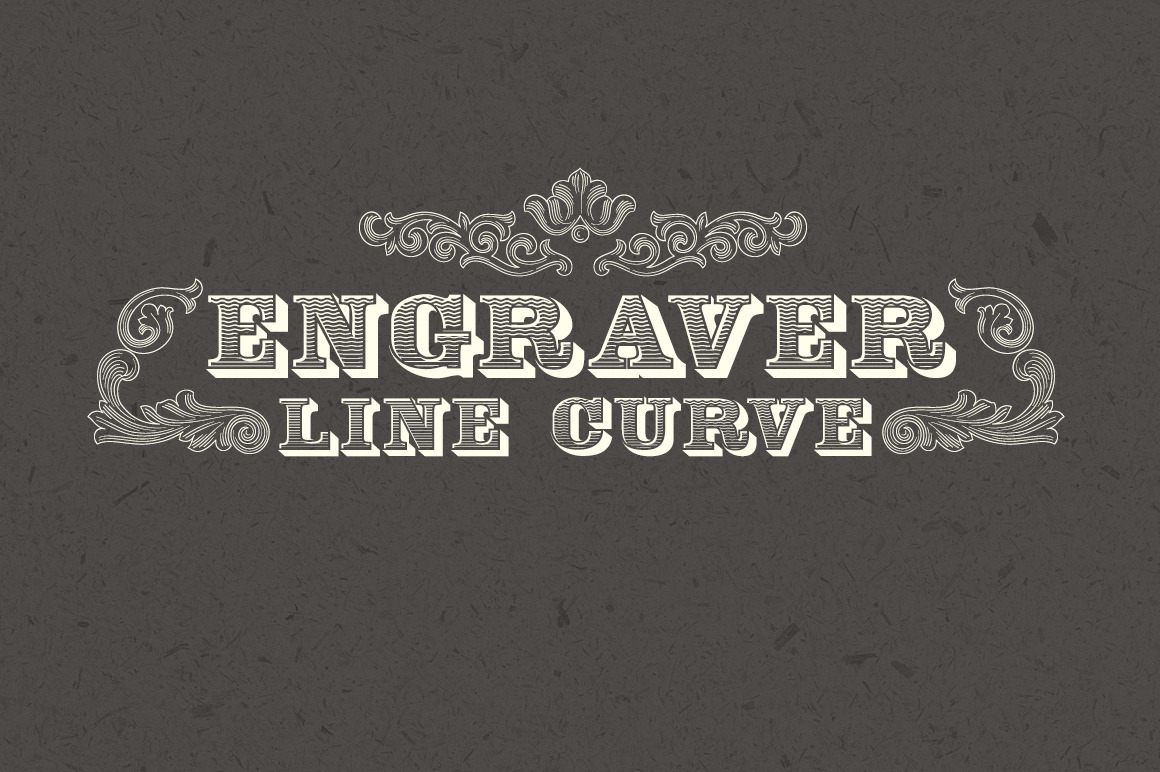
Engraver Font
Engraver is a set of carved texture fonts, which is suitable for certificate and securities title display. It includes three fonts: curved water ripple, straight line and extended decoration.